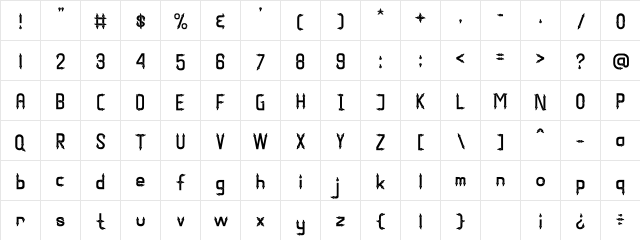
Megamendung Regular
Design Context for Megamendung Typeface
Megamendung offers clean, dependable letterforms without strong stylistic allegiance, making it a practical choice for designers who need flexibility.